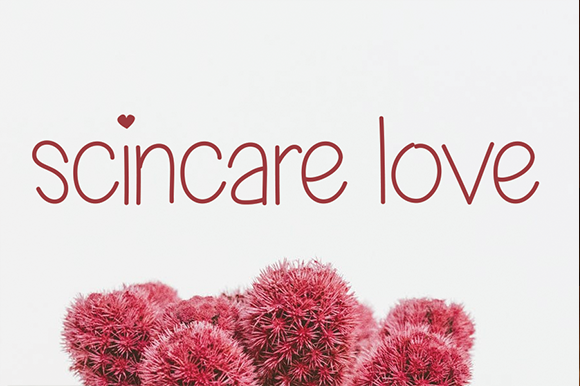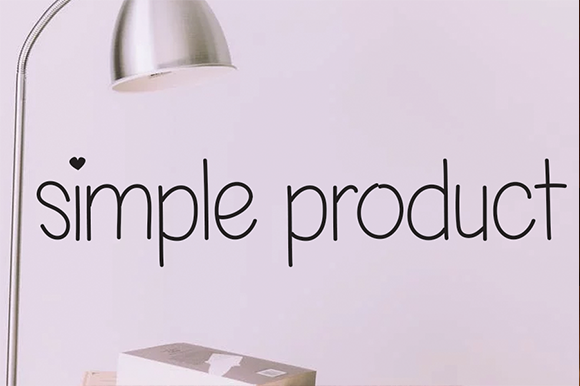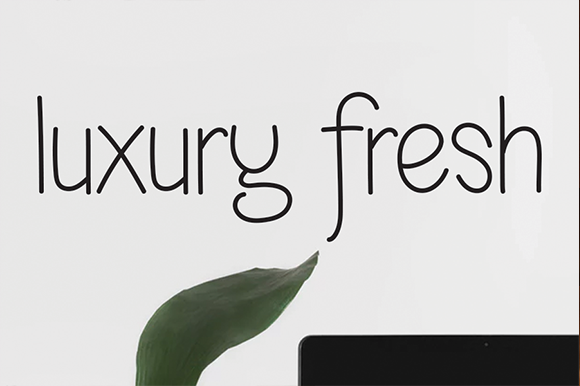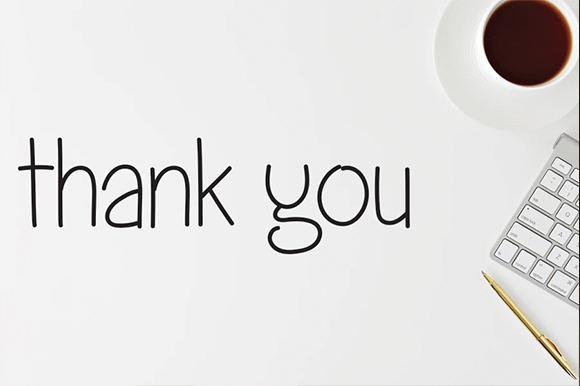
Introduction to Minimall Jumi Font
Have you ever stared at a blank canvas, waiting for the perfect design to come to life? It’s that moment when you crave a typeface that can elevate your creative project from ordinary to extraordinary. For designers seeking a clean and sophisticated look, the search is over – Minimall Jumi Font is here to revolutionize your design process.
This elegant sans-serif font boasts a transparent background, allowing it to seamlessly blend with any visual element. With its high-quality design, Minimall Jumi Font is an invaluable resource for designers who value simplicity and style. And the best part? It’s available for a free download, making it an accessible addition to your design arsenal. Whether you’re working on a formal or non-formal project, this versatile font is sure to leave a lasting impression.
As a design resource, Minimall Jumi Font offers unparalleled flexibility, making it an essential tool for creatives who demand nothing but the best. Get ready to unlock new design possibilities with this stunning typeface that’s sure to elevate your creative projects to new heights.
Key Features of Minimall Jumi Font
- Features a unique, modern design aesthetic, making it suitable for various creative projects, from branding to digital art.
- Comes in a single weight, providing a clean and minimalist look that is perfect for modern designs and creative projects.
Honest Review: Minimall Jumi Font
I recently had the chance to work with the Minimall Jumi Font for a creative project, and I must say, I was quite impressed with the overall quality.
- The Minimall Jumi Font is a high-quality font that is perfect for creative projects.
- The font’s minimalist design is clean and simple, making it easy to read and use in various contexts.
- It’s also versatile, allowing you to use it for a variety of purposes, from headings to body text.
One limitation I found was that the font doesn’t work well with transparent backgrounds. The font’s design is meant to be simple and clean, but it can sometimes get lost when used with a transparent background.
Overall, I was very pleased with the Minimall Jumi Font. It’s a high-quality, free design resource that is perfect for creative projects. While it has some limitations, it’s definitely worth checking out for anyone looking for a simple and effective font for their next project.
Minimall Jumi Font is perfect for a variety of creative projects, including logos, brochures, business cards, and social media graphics. Its clean design and transparent background make it ideal for modern and minimalist designs.